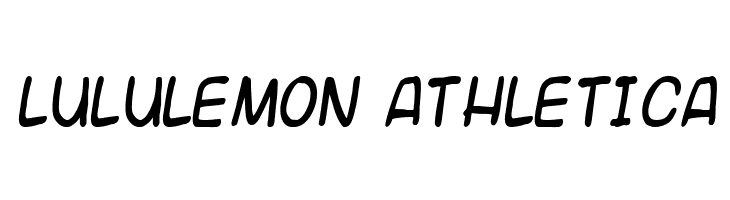
Right in the Middle Font
- Font: Right in the Middle
A playful, handwritten font with bold, rounded strokes and a casual style.
( Fonts by Andy Krahling - Sunwalk )